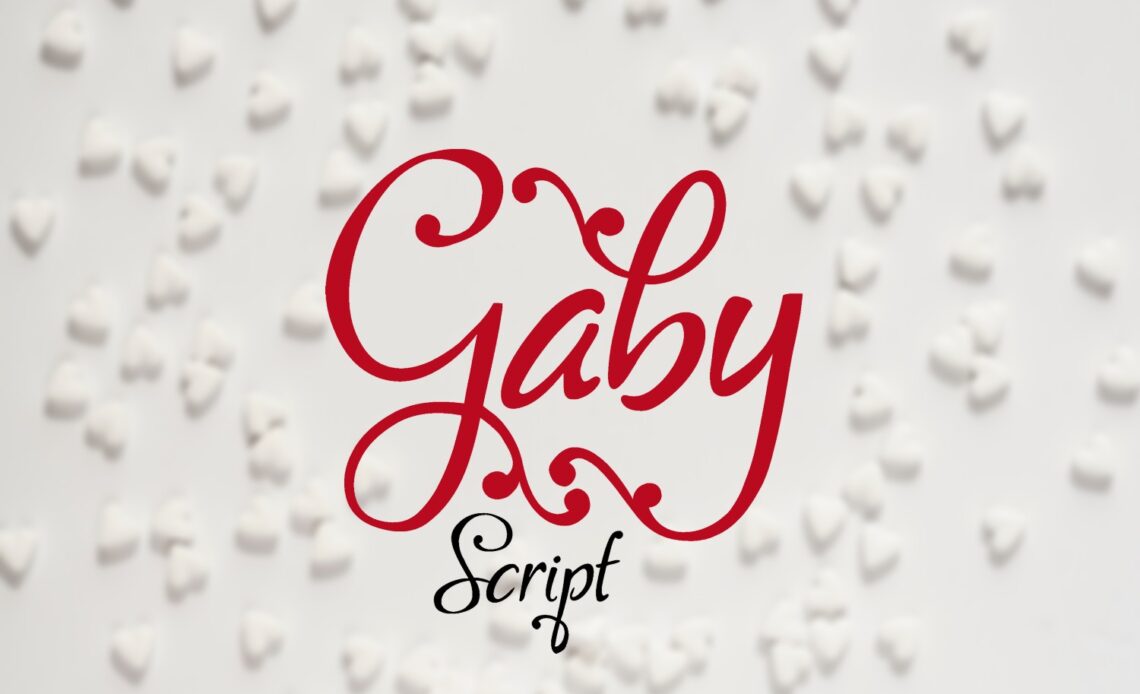
Prepare yourself to dive into the world of Gaby, a captivating script font family that dances across your screen with elegance and charm. Our skilled artisans at Digital Typeface Studio have crafted this alluring font to transform your designs from ordinary to extraordinary. Gaby's personality shines through its graceful lines, capturing the essence of handwritten beauty.
Immerse yourself in the versatility of Gaby. Its diverse range of weights and styles makes it a chameleon, adapting flawlessly to your creative vision. Whether you're designing whimsical invitations, elegant logos, or eye-catching social media posts, Gaby's versatility will elevate your designs to new heights.
Feel the joy in every curve and stroke of Gaby. Its infectious energy will captivate your audience, leaving a lasting impression. Let your designs dance with happiness and be remembered long after they're seen. Gaby's cheerful nature will radiate through your creations, evoking feelings of pure joy and delight.
Ignite your creativity with Gaby. Its free-spirited nature inspires endless possibilities, encouraging you to explore your imagination and push the boundaries of design. Gaby will spark your creativity and ignite a passion within you, helping you create designs that truly stand out.
With Gaby as your design partner, you'll unlock a world of possibilities. Its enchanting characters will transform your words into art, captivating your audience and leaving them mesmerized. Experience the magic of Gaby and witness the remarkable difference it brings to your designs.